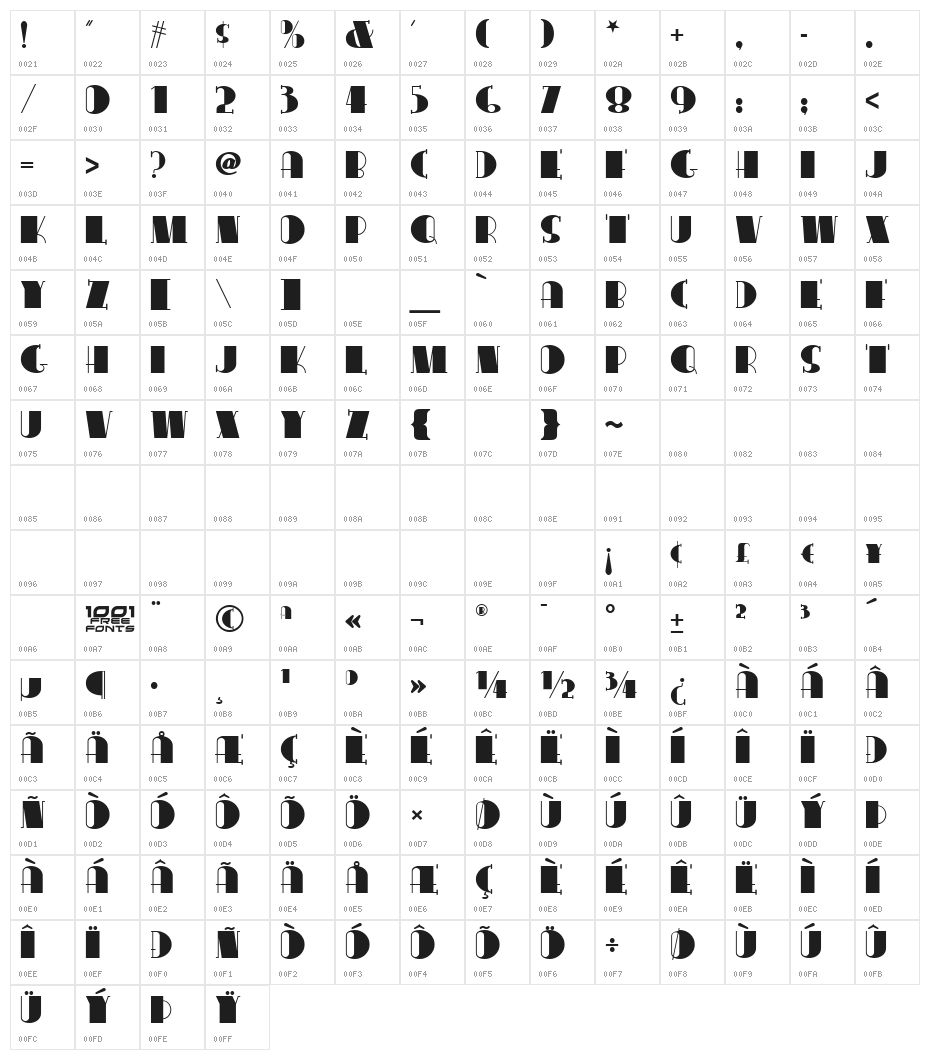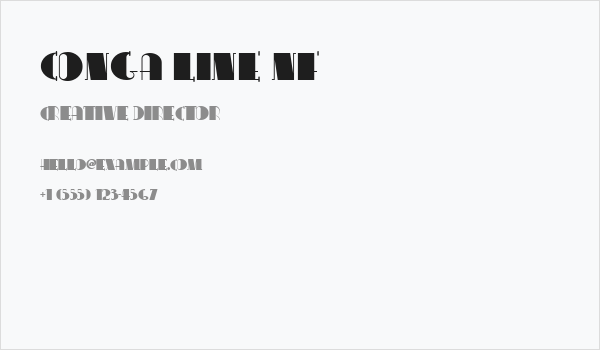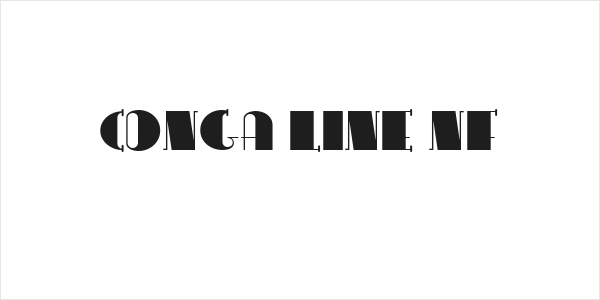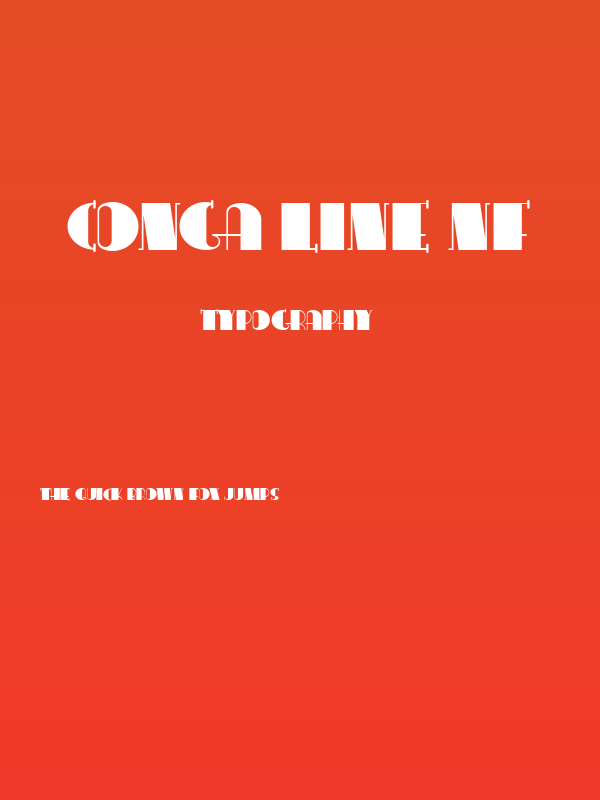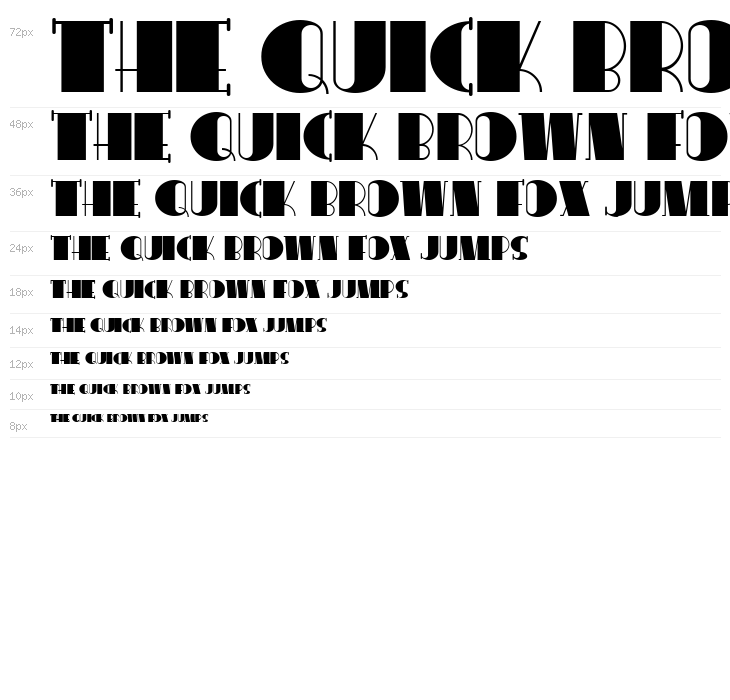
Conga Line NF Font
Conga Line NF Description
This font features a bold and striking design with a unique blend of geometric and decorative elements. The characters are constructed with a combination of thick, solid strokes and thin, elegant curves, creating a high contrast that draws attention. The uppercase letters are particularly distinctive, with a playful yet sophisticated style that makes them stand out. The lowercase letters maintain the same boldness, ensuring consistency across text. Numbers and special characters are equally bold, with a modern flair that complements the overall design. This font is ideal for projects that require a strong visual impact.
| Proposed Projects | Ideal for branding, posters, headlines, and any design requiring a bold statement. |